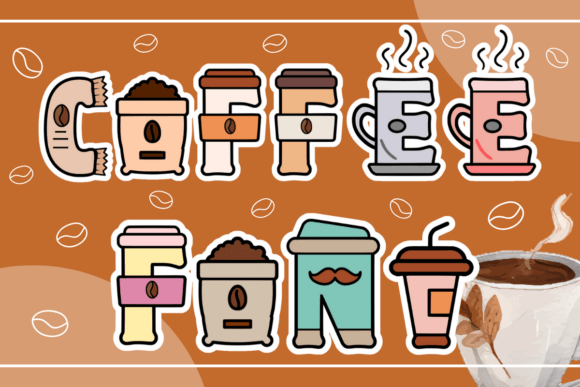
The Ultimate Guide to Coffee Font: A Deliciously Creative Design Element
I’ll never forget the morning I was working on a branding project for a trendy coffee shop. My client wanted a font that would capture the essence of their specialty coffee business, but I was struggling to find the perfect fit. That’s when I stumbled upon Coffee Font, a decorative font where each letter is creatively crafted from coffee-related items like beans, cups, and spills. It was love at first sight! 💕
A Personal Review of Coffee Font
As a designer, I’m always on the lookout for unique and creative design elements that can help my projects stand out. Coffee Font definitely delivers on that front. Here’s what I love about it:
- ✨ Unique and creative design inspired by coffee
- ✅ Perfect for coffee shop branding, packaging, and advertising
- ✅ Easy to use and customize with OpenType features and glyphs
Of course, no font is perfect, and Coffee Font has a few small quirks:
- ⚠️ Limited use outside of coffee-themed designs (may not be suitable for more formal or professional projects)
- 🤔 Some letters may require manual adjustment for optimal spacing and alignment
The Story Behind Coffee Font
Coffee Font was designed by a creative team of designers who are passionate about coffee and good design. The idea was born out of a desire to create a unique and creative font that would capture the essence of coffee culture. The team spent countless hours brainstorming and experimenting with different designs, finally settling on a concept that features coffee-related items like beans, cups, and spills.
| Font Name | Coffee Font |
| Author | Kalilaart |
| What is Coffee Font? | Coffee Font is a decorative font where each letter is made from coffee-related items, like beans, cups, and spills. |